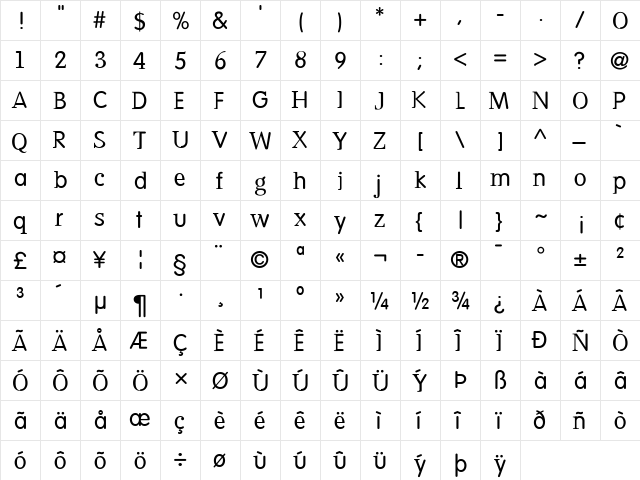
DeadHistoryRom Medium Font Preview
DeadHistoryRom Medium
Design Context for DeadHistoryRom Typeface
DeadHistoryRom offers clean, dependable letterforms without strong stylistic allegiance, making it a practical choice for designers who need flexibility.
Pro Tip: Pair DeadHistoryRom with a font of contrasting weight or personality to build a more expressive typographic hierarchy.